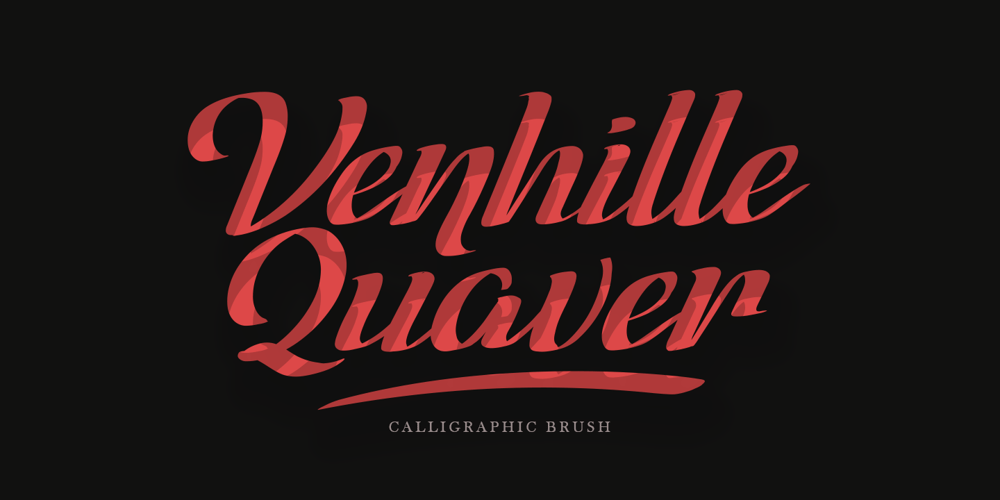
Vanhille Quaver Font Family was designed by Agam Rahmadan and published by Viswell. Vanhille Quaver contains 1 styles and family package options. Venhille Quaver is inspired by classic typography and brings its own unique style to any design project. This fantastic handwritten font is best suited for headlines of all sizes, as well as for blocks of text that have both maximum and minimum variations. Whether it’s for web, print, moving images or anything else – Venhille Quaver will look spectacular.